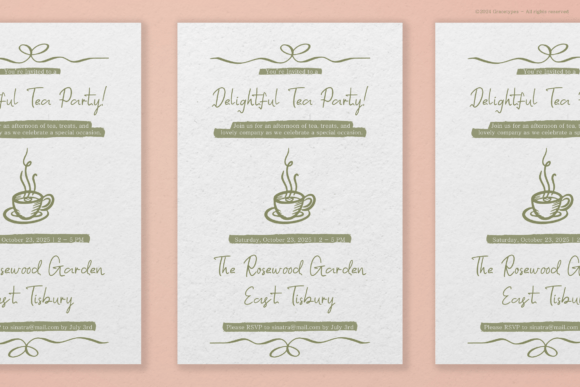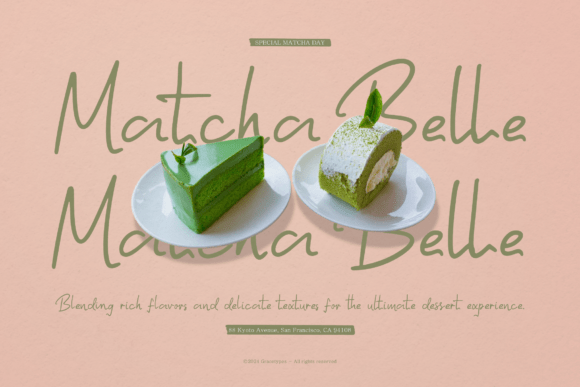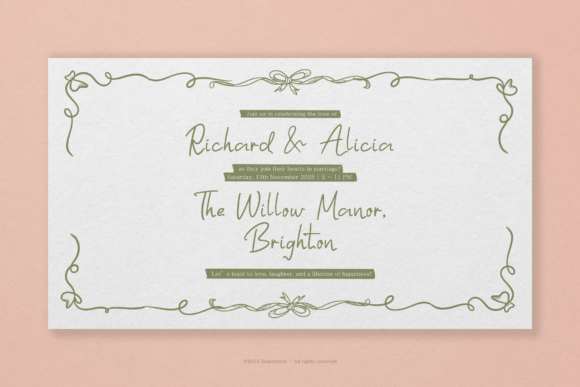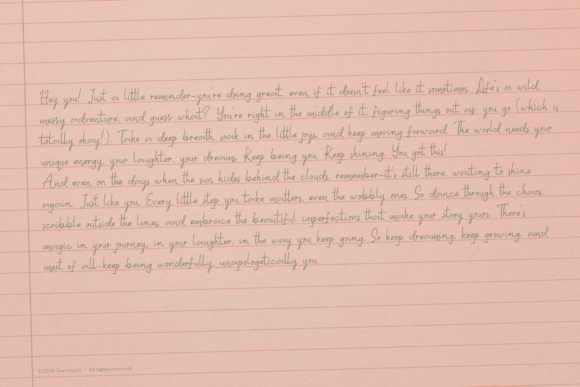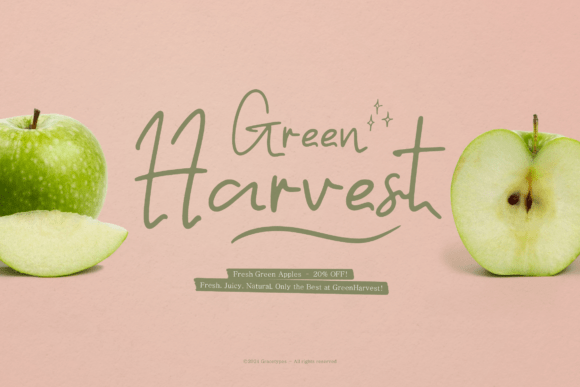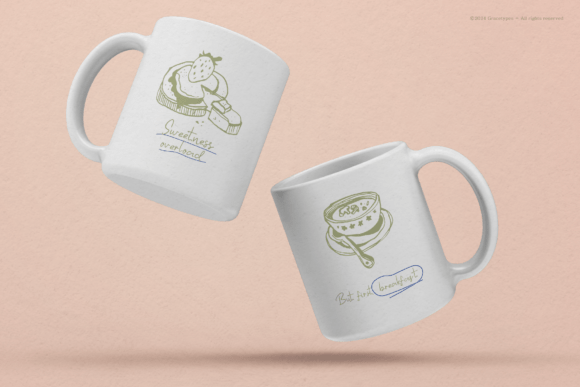
Introduction to Sinatra Draw Font
As a designer, you know the thrill of finding the perfect font to bring your creative project to life. It’s like stumbling upon a hidden gem, a font that speaks directly to your vision and elevates your design to new heights. For many, that gem is the Sinatra Draw Font, a charming and whimsical handwritten font that’s as unique as it is captivating.
With its delicate strokes and playful imperfections, the Sinatra Draw Font adds a touch of personality to any design. Whether you’re working on a wedding invitation, a greeting card, or an artisanal brand, this beautifully sketched typeface is sure to impress. And the best part? It’s a high-quality design resource that’s available for free download, complete with a transparent background for seamless integration into your projects.
For designers, the Sinatra Draw Font is a valuable addition to any design toolkit. Its organic feel and whimsical charm make it an ideal choice for creative projects that demand a touch of elegance and sophistication. Whether you’re a seasoned pro or just starting out, this font is sure to inspire and delight.
Sinatra Draw Font
- Features a unique, elegant style with intricate details and subtle textures.
- Designed to be highly versatile, suitable for a wide range of applications, including logos, typography, and graphics.
- Includes multiple font styles, including regular, bold, and italic, for added flexibility.
Honest Review: Sinatra Draw Font
As a designer, I’m always on the lookout for unique and high-quality design resources to elevate my creative projects. The Sinatra Draw Font is one such resource that caught my attention.
What works well is the font’s distinctive, hand-drawn feel, reminiscent of classic jazz era posters. It’s perfect for adding a touch of elegance to your designs, especially when paired with a transparent background to really make the text pop. ✨
Here are some of the key features that make the Sinatra Draw Font stand out:
- High-quality design with a unique, hand-drawn feel
- Works well with a transparent background for a modern, stylish look
However, I did find that the font can be a bit tricky to use in certain situations, particularly when it comes to font sizes and legibility. The lines can become a bit too thin, making it difficult to read at smaller sizes. ⚠️
Overall, I’d highly recommend the Sinatra Draw Font for designers looking to add a touch of sophistication to their creative projects. With a little practice, you can master the font’s unique quirks and create truly stunning designs.
Sinatra Draw Font
The Sinatra Draw Font is a high-quality design resource that can add a touch of elegance to your creative projects. This free download offers a unique and stylish font that can be used in various applications.
Tips for Getting the Most Out of Sinatra Draw Font
To get the most out of the Sinatra Draw Font, use it with a transparent background to create a sense of depth and elegance in your designs.
The Sinatra Draw Font is commonly used in:
- Branding and marketing materials.
- Photography and art projects.